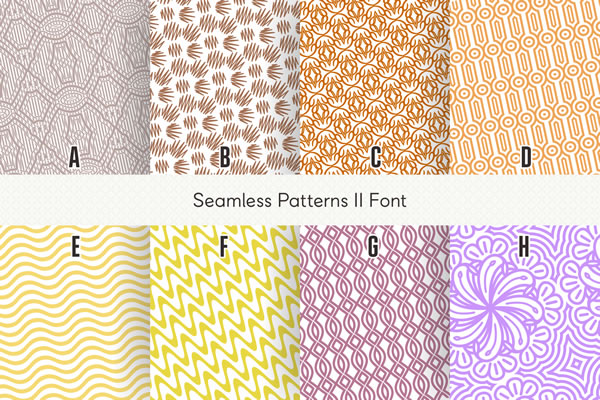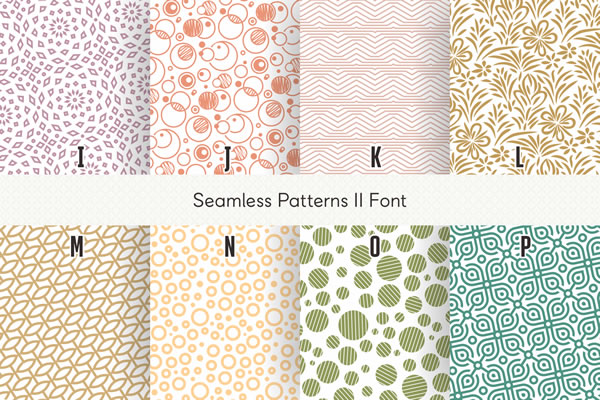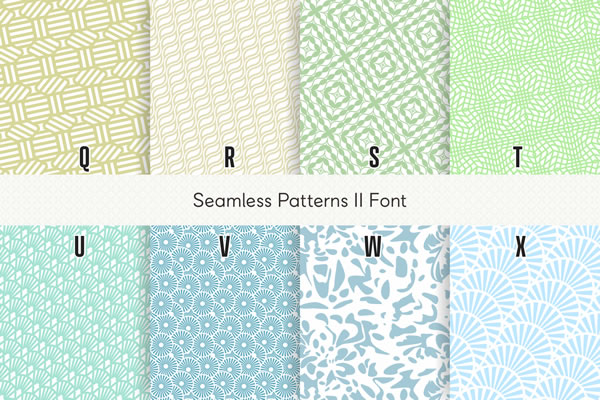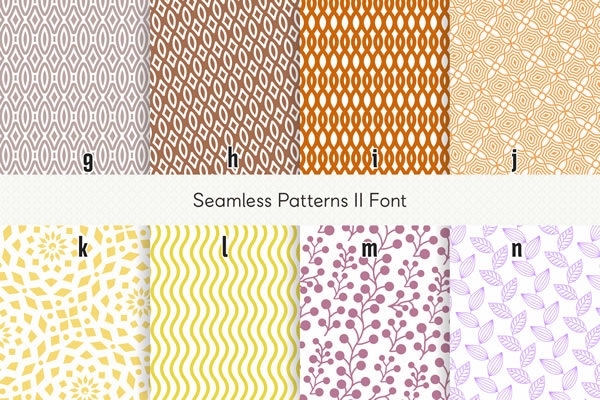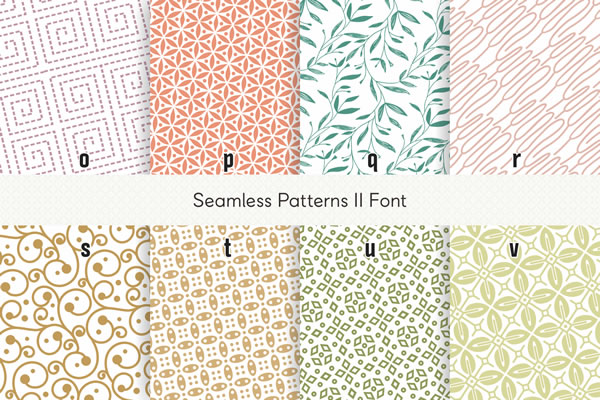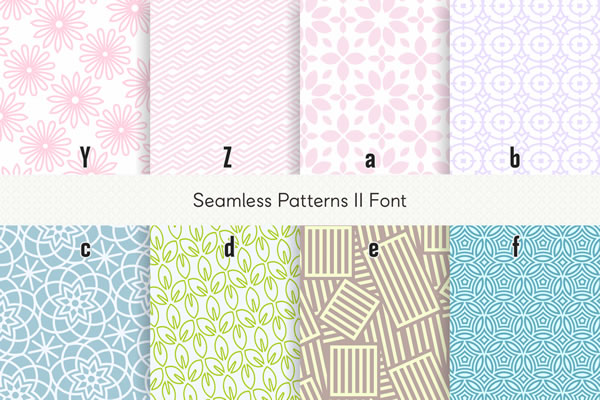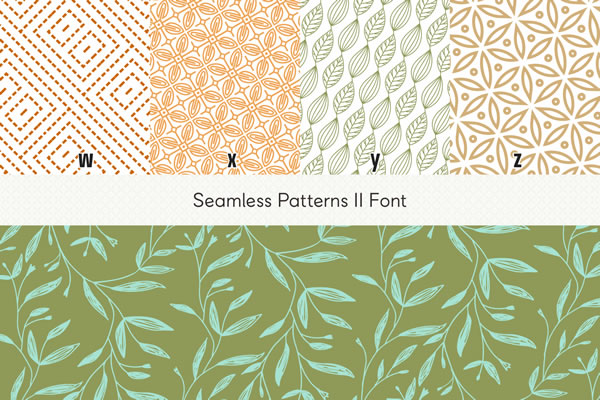
Seamless Patterns II Font
About Seamless Patterns II Font
The Seamless Patterns Dingbat Font by Situjuh Nazara is a truly remarkable collection of 63 unique patterns that can transform your text into stunning, seamless designs. With this font, you can easily create eye-catching backgrounds, borders, and decorative elements for various projects.
To create a seamless pattern using this font, simply type your desired text using the letters or symbols provided in the font. Each character corresponds to a distinct pattern design. You can experiment with different combinations and arrangements to achieve the desired look.
For example, if you want to create a seamless pattern with the word “Hello,” you can type it using the corresponding characters from the font. The result will be a captivating pattern formed by the intricate designs within the letters.
The Seamless Patterns Dingbat Font offers a wide range of designs, including geometric shapes, floral motifs, abstract patterns, and more. The seamless nature of these patterns allows for smooth repetition without any visible seams or gaps.
Whether you’re designing invitations, posters, web graphics, or any other creative project, this font provides endless possibilities for adding visually appealing patterns. Let your imagination run wild as you explore the unique patterns and create captivating designs effortlessly.
Embrace the versatility and beauty of the Seamless Patterns Dingbat Font by Situjuh Nazara, and elevate your designs with seamless patterns that are sure to impress.